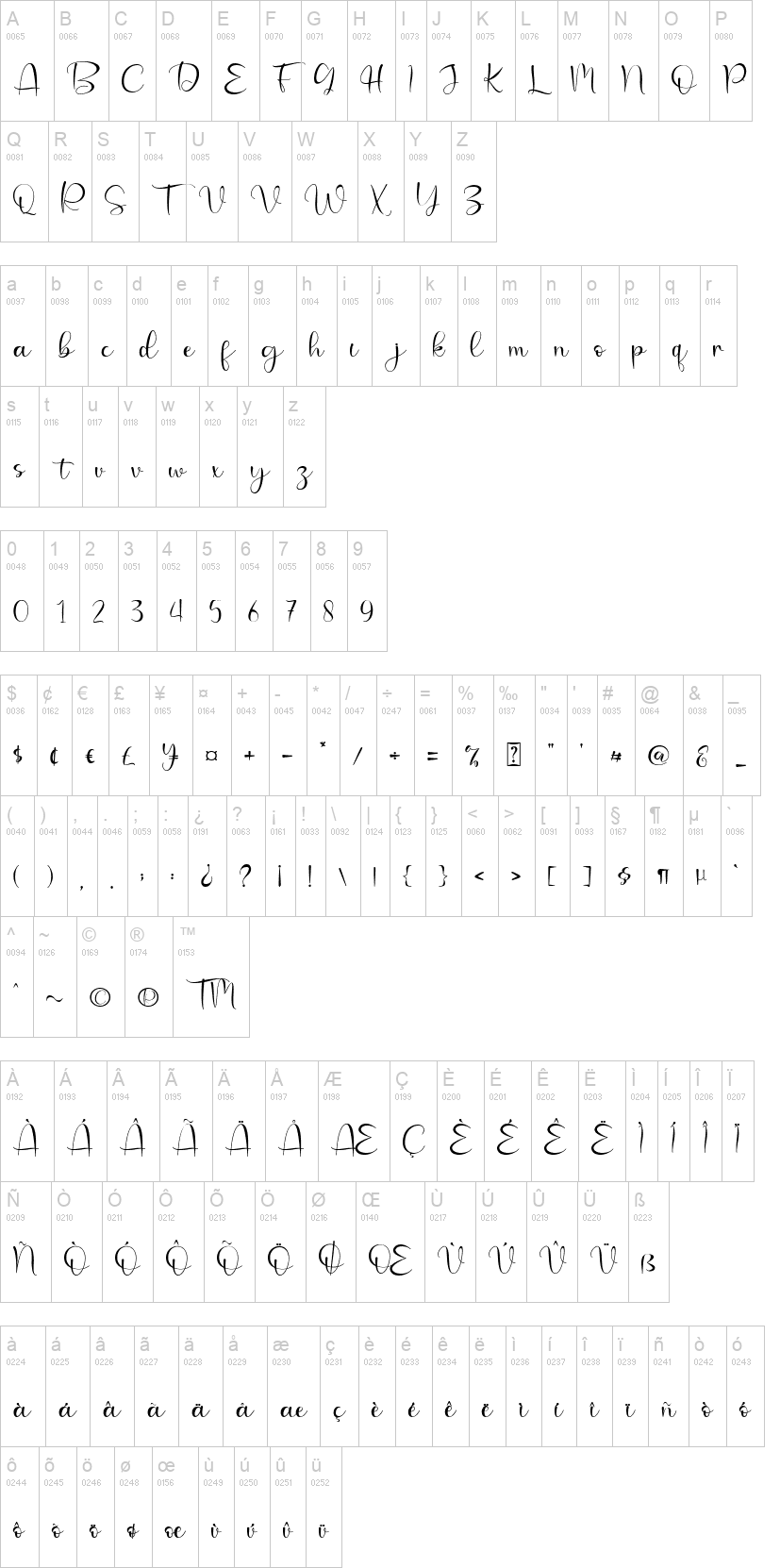
Black Love Pink Font
Black Love Pink Font - Web black love pink italic. ← back to family page. Web download the black love pink font by stefani tri rosa setiati christiana. The black love pink font has been downloaded 3,203 times. Fall in love with its delicate. Web carefully designed, black love pink is a stunning and beautiful handwritten font with a light feel.
Web black love pink italic. Fall in love with its delicate. Web download the black love pink font by stefani tri rosa setiati christiana. Web carefully designed, black love pink is a stunning and beautiful handwritten font with a light feel. The black love pink font has been downloaded 3,203 times. ← back to family page.
Web download the black love pink font by stefani tri rosa setiati christiana. The black love pink font has been downloaded 3,203 times. Fall in love with its delicate. Web carefully designed, black love pink is a stunning and beautiful handwritten font with a light feel. Web black love pink italic. ← back to family page.
Black Love Pink Font 1001 Free Fonts
Web carefully designed, black love pink is a stunning and beautiful handwritten font with a light feel. ← back to family page. Fall in love with its delicate. The black love pink font has been downloaded 3,203 times. Web download the black love pink font by stefani tri rosa setiati christiana.
Black Love Pink Font
Web black love pink italic. The black love pink font has been downloaded 3,203 times. ← back to family page. Web carefully designed, black love pink is a stunning and beautiful handwritten font with a light feel. Fall in love with its delicate.
Black Love Pink font by Stefani Letter FontRiver
← back to family page. Fall in love with its delicate. Web black love pink italic. The black love pink font has been downloaded 3,203 times. Web download the black love pink font by stefani tri rosa setiati christiana.
Blacklovepink Font stefaniletter FontSpace
← back to family page. Web download the black love pink font by stefani tri rosa setiati christiana. Web black love pink italic. Fall in love with its delicate. Web carefully designed, black love pink is a stunning and beautiful handwritten font with a light feel.
Black Love Pink Font 1001 Free Fonts
Web download the black love pink font by stefani tri rosa setiati christiana. ← back to family page. Web black love pink italic. Fall in love with its delicate. Web carefully designed, black love pink is a stunning and beautiful handwritten font with a light feel.
Black Love Pink Font 1001 Free Fonts
← back to family page. Web download the black love pink font by stefani tri rosa setiati christiana. Web carefully designed, black love pink is a stunning and beautiful handwritten font with a light feel. Web black love pink italic. The black love pink font has been downloaded 3,203 times.
Black Love Pink Font 1001 Free Fonts
Web carefully designed, black love pink is a stunning and beautiful handwritten font with a light feel. Fall in love with its delicate. Web black love pink italic. ← back to family page. The black love pink font has been downloaded 3,203 times.
Black Love Pink Font 1001 Free Fonts
Web black love pink italic. The black love pink font has been downloaded 3,203 times. Web carefully designed, black love pink is a stunning and beautiful handwritten font with a light feel. Fall in love with its delicate. Web download the black love pink font by stefani tri rosa setiati christiana.
Black Love Pink Font 1001 Free Fonts
← back to family page. Web carefully designed, black love pink is a stunning and beautiful handwritten font with a light feel. Web download the black love pink font by stefani tri rosa setiati christiana. The black love pink font has been downloaded 3,203 times. Fall in love with its delicate.
Fall In Love With Its Delicate.
← back to family page. Web carefully designed, black love pink is a stunning and beautiful handwritten font with a light feel. The black love pink font has been downloaded 3,203 times. Web black love pink italic.